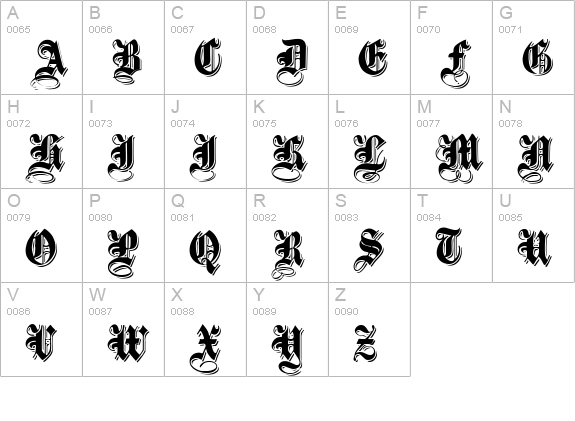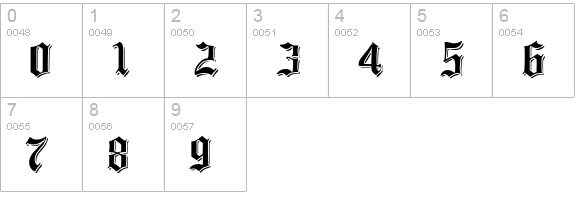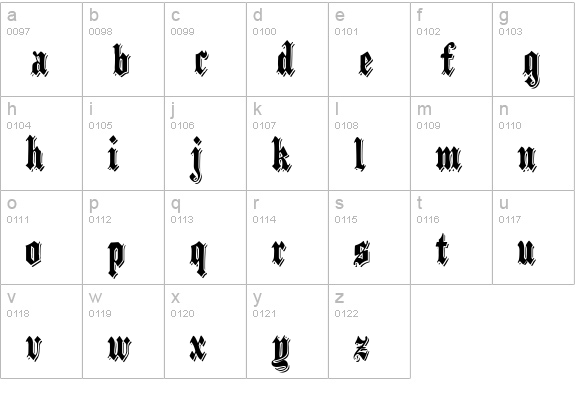
ShadowedBlack Normal Font Details
ShadowedBlack Normal is the standard, neutral variant in the ShadowedBlack typeface family \xE2\x80\x94 well suited to general body text, paragraphs, and standard typographic work.
ShadowedBlack Normal is a powerful and captivating font that will add a touch of sophistication and elegance to any design project. This font exudes a sense of mystery and intrigue, with its bold and distinctive letterforms that are filled with depth and shadow. Each character is intricately designed, creating a unique and eye-catching appearance. The ShadowedBlack Normal font is perfect for a variety of applications, whether you're designing a logo, creating a poster, or even crafting a stylish invitation. Its versatility allows it to seamlessly adapt to different design styles and themes, making it a valuable asset for any creative endeavor. What makes ShadowedBlack Normal even more enticing is the fact that it is available for free download at FontsMarket.com. This means that you can easily access this exceptional font without any cost, allowing you to enhance your designs without breaking the bank. FontsMarket.com offers a wide range of high-quality fonts, and ShadowedBlack Normal is just one of the many options available. With its bold and alluring aesthetics, ShadowedBlack Normal is sure to make a lasting impression on your audience. So why wait? Head over to FontsMarket.com and download this remarkable font today. Unleash your creativity and elevate your designs with the captivating presence of ShadowedBlack Normal.